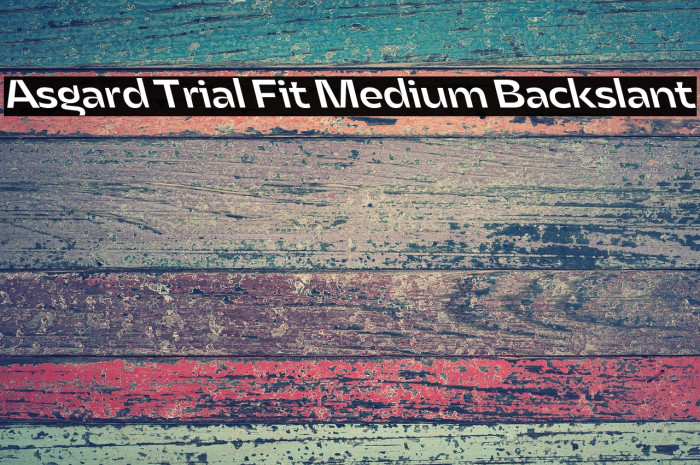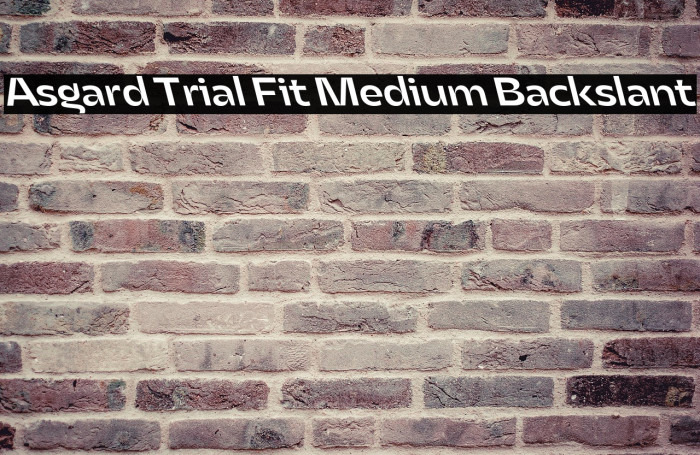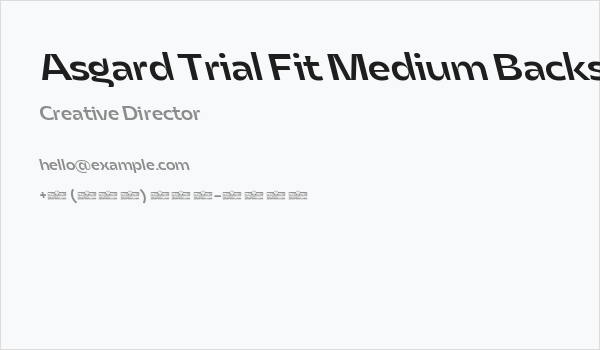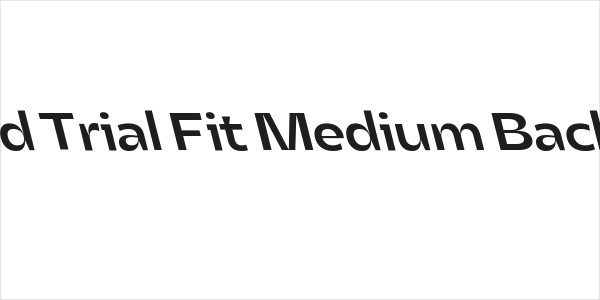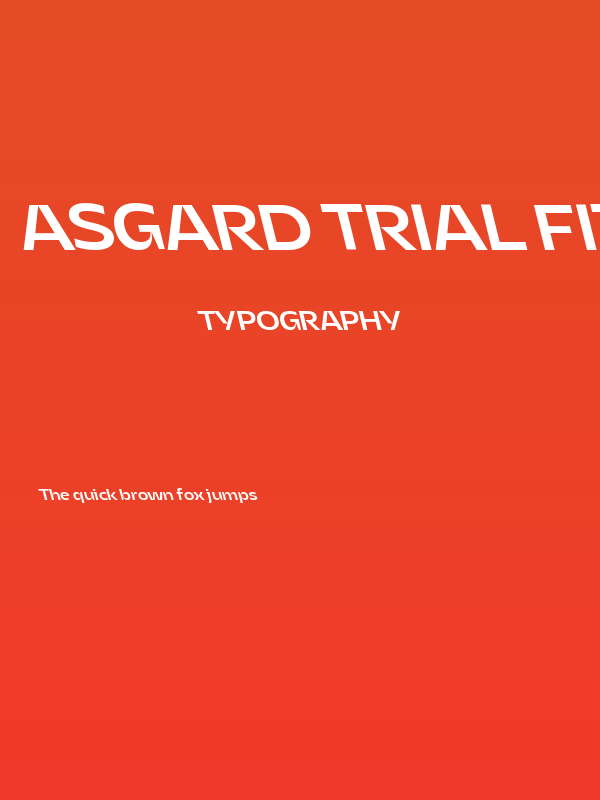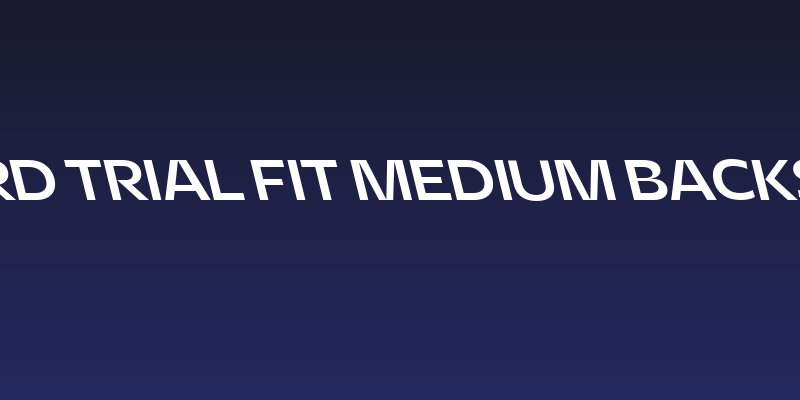
Asgard Trial Fit Medium Backslant Font
Asgard Trial Fit Medium Backslant Description
This font features a modern and dynamic style with a distinct backslant, giving it a sense of motion and energy. The characters are bold and slightly condensed, with a consistent stroke width that provides a clean and uniform appearance. The uppercase and lowercase letters maintain a harmonious balance, while the numerals and special characters are designed to complement the overall aesthetic. The font's geometric shapes and smooth curves contribute to its contemporary feel, making it suitable for a variety of design applications.
| Proposed Projects | Ideal for branding, advertising, and editorial design projects where a modern and energetic look is desired. |